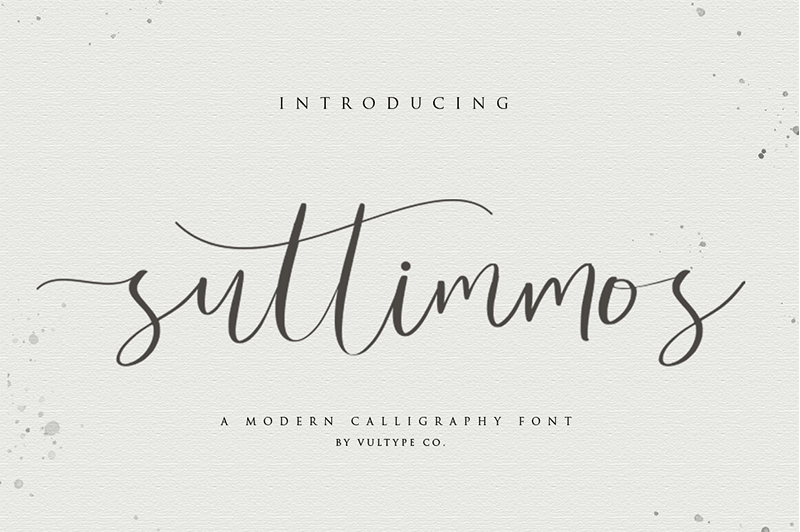
Suttimmos
Note of the author This enchanting font will turn any creative idea into a true standout.
Perfect fit for all of your logos, branding, social media, etc.
Get creative with its unique playfulness, and use it to brighten up any crafting project!